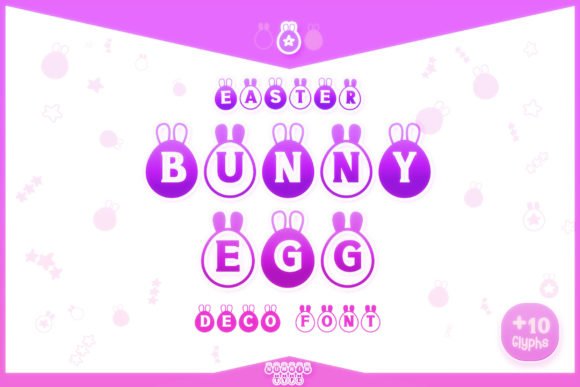
The Magic of Easter Bunny Egg Font: Bringing Whimsy to Your Designs
Have you ever sat down with a blank piece of paper, a cup of coffee, and a spark of creativity? It’s that moment when anything seems possible, and the world is full of endless possibilities. For designers, it’s a feeling that’s hard to replicate, but with the right tools, it can be a reality. One of those tools is the Easter Bunny Egg Font, a delightfully crafted decorative font that brings a touch of whimsy to any design.
Perfect for adding a playful twist to stickers, mugs, t-shirts, ornaments, and more, the Easter Bunny Egg Font is a valuable addition to any designer’s toolkit. With its PUA encoding, accessing all glyphs and swashes is a breeze, making it a joy to work with. Whether you’re creating Easter-themed designs or just looking to add some fun to your projects, the Easter Bunny Egg Font is sure to bring a smile to your face and a touch of magic to your designs.
- Unique Characteristics: The Easter Bunny Egg Font features a playful, whimsical design, with intricate details and patterns inspired by Easter eggs, making it perfect for spring-themed projects and celebrations.
- Style: The font is highly legible, with a mix of rounded and sharp edges, creating a visually appealing contrast that adds to its charm.
Easter Bunny Egg Font Review
Overall, I was excited to dive into the “Easter Bunny Egg Font” and see what it had to offer. As a designer, I appreciate unique and playful fonts that can bring some personality to a project.
- ✨ Unique design: The Easter Bunny Egg Font is unlike any other font I’ve seen. The mix of Easter-themed elements and creative typography makes it perfect for spring or Easter-themed projects.
- ✨ Versatility: The font comes in a variety of weights, making it easy to use in different contexts – from headings to body text.
- ✨ High-quality graphics: The font includes some amazing graphics, like eggs and bunnies, which can be used as standalone elements or integrated into the text.
- ⚠️ Limited character set: Unfortunately, the font’s character set is limited, making it less suitable for longer texts or complex content.
- ⚠️ Not ideal for serious projects: While the font is perfect for fun, lighthearted projects, it might not be the best choice for more serious or formal content.
Overall, I’d say the Easter Bunny Egg Font is a fun and creative addition to any designer’s toolkit. While it has some limitations, it’s perfect for projects that need a playful touch. I’d definitely use it for Easter-themed projects or any other project that requires a whimsical feel.
For best results, use the Easter Bunny Egg Font in conjunction with Easter-themed graphics and colors.
Here are a few tips for getting the most out of the Easter Bunny Egg Font:
- Use the font in conjunction with Easter-themed graphics and colors.
- Use the font to create a cohesive brand identity for your Easter-themed design.
The Easter Bunny Egg Font is commonly used in the following situations:
- Easter card designs.
- Easter party invitations.
- Use the Easter Bunny Egg Font for the main title or the Easter egg decoration in the background.
- Combine the font with pastel-colored eggs, bunnies, and floral patterns to create a spring-inspired design.
- Consider adding a cute Easter bunny character holding an egg to make the design more engaging.